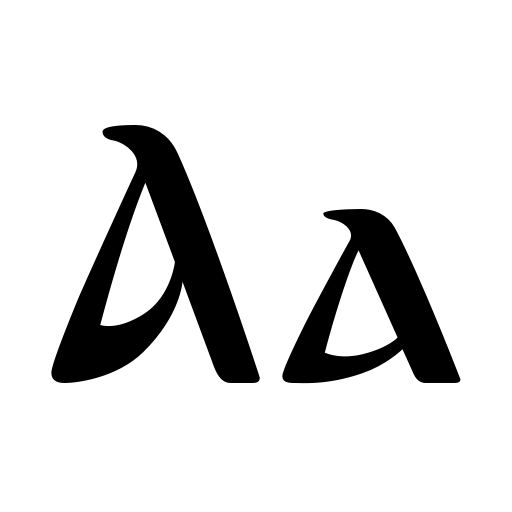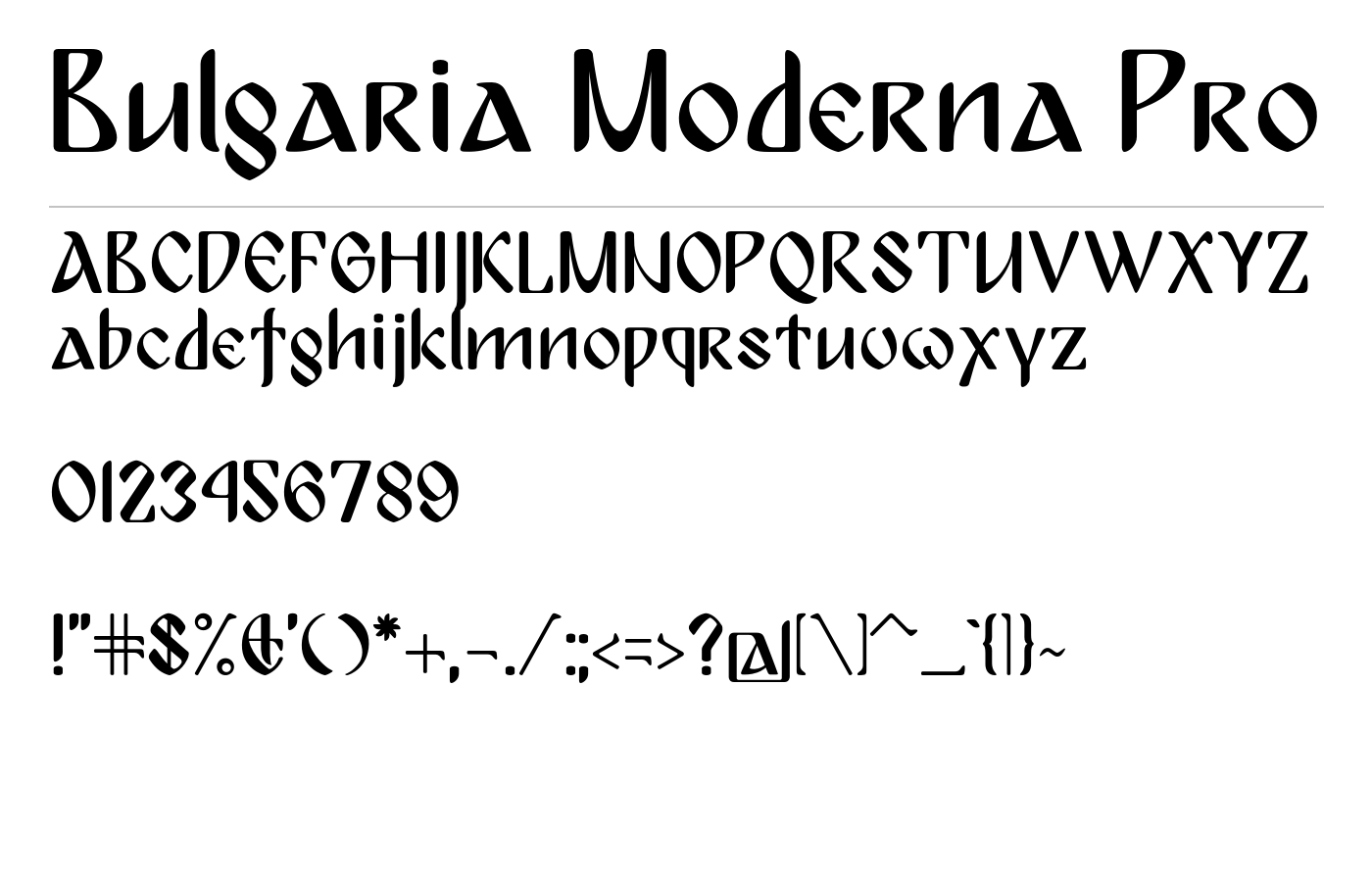
Bulgaria Moderna Pro is a distinctive serif font with a vintage, artful flair, combining moderate stroke contrast with sharp, angular strokes and unique letterforms that capture attention. Its medium weight and slightly condensed width make it ideal for display uses where elegance and personality are key, such as logos, headlines, and creative branding in fashion or cultural projects. This font stands out by offering a refined yet unconventional style, perfect for designs seeking a blend of modernity with historical character.
Bulgaria Moderna Pro Font
About Bulgaria Moderna Pro Font
| Font family | Bulgaria Moderna Pro Font |
| Designer | Yanko Tsvetkov |